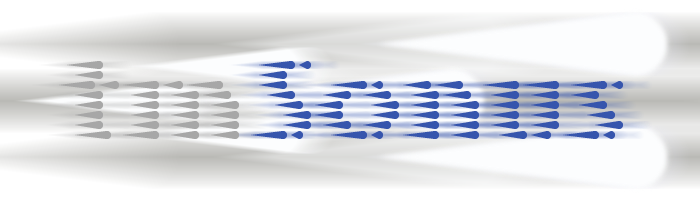
wow.
@thalamic - That is a REALLY nice effect.  Congratulations!
Instant classic!  Reminds me of NIKE logo done this way I saw some time ago, so really good for sports related themes.
This one just came together by chance. It was a simple dot font, that got added tails as an afterthought, sort of dots blown away. Then just minor tweaks to make the streaky dots fit.
With eyes half closed this has some great depth (shadows). Legible at small size. 10/10
That is so cool! Reminds me of another font... NCD Embroidery.
Really cool. Perfect for a racing game.
Congratulations! FontStruct Staff have deemed your FontStruction worthy of special mention. “tm Sonus” is now a Top Pick.
"It's all about speed!"
- Sonic the Hedgehog